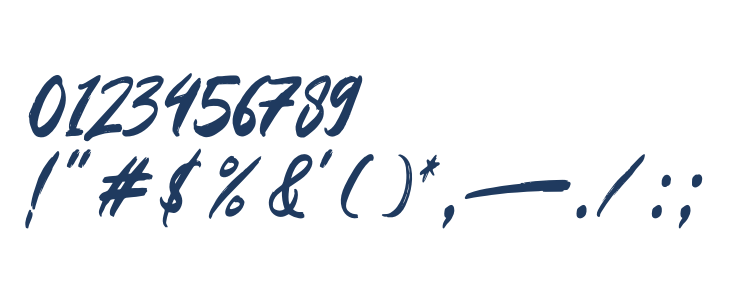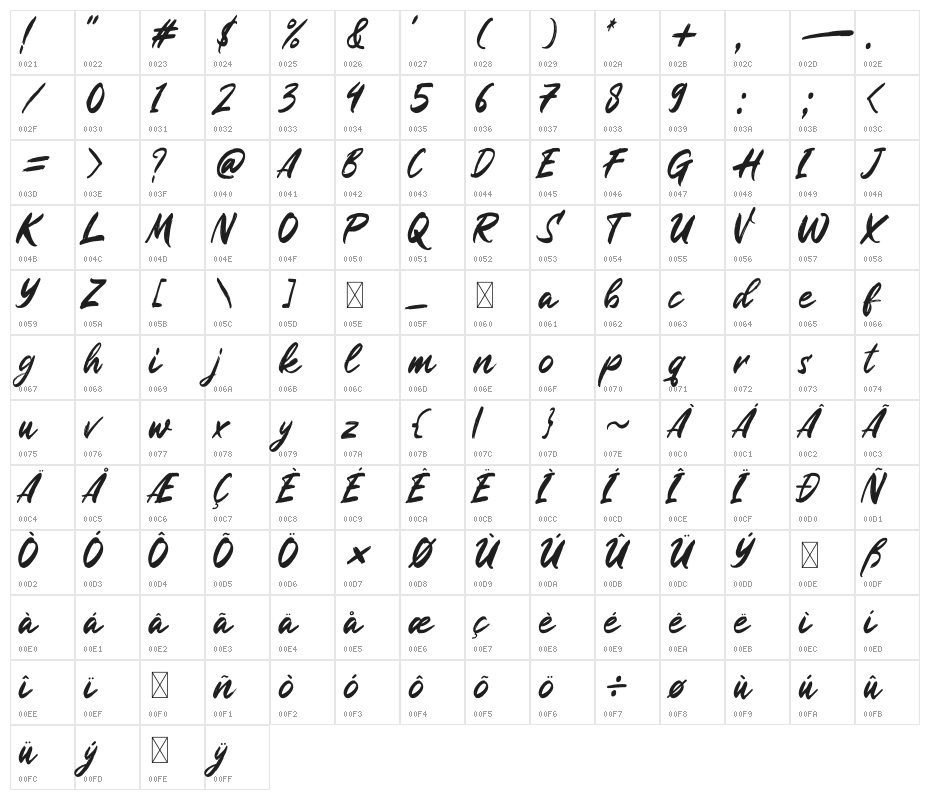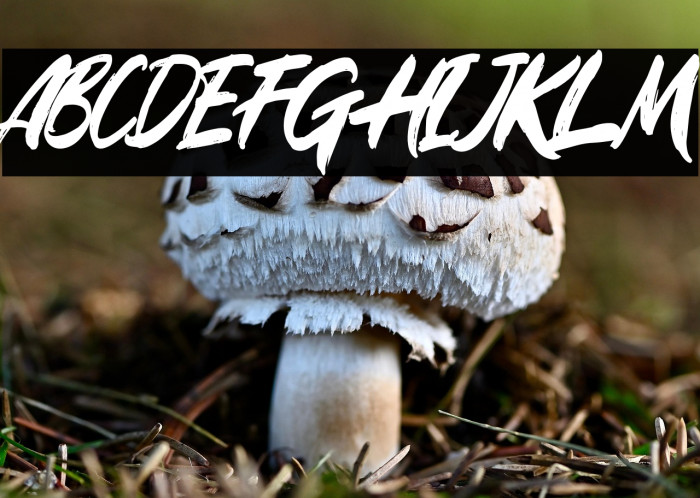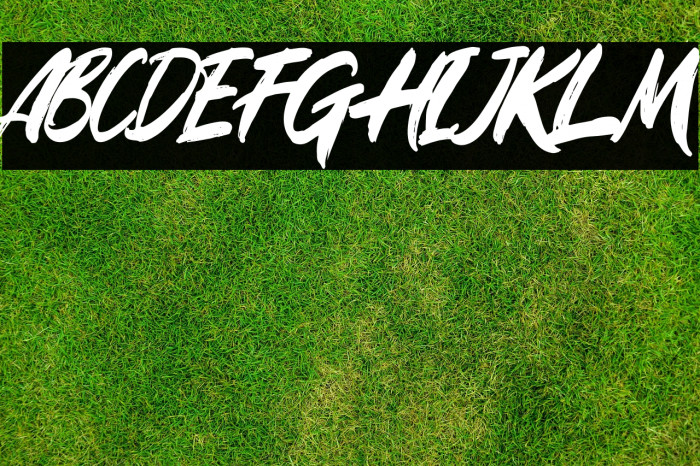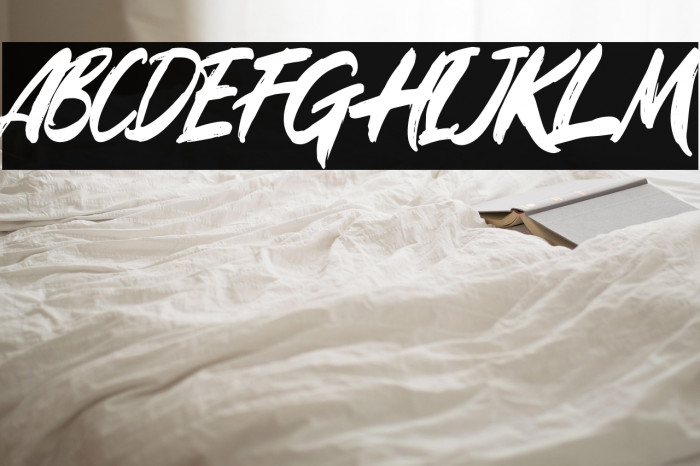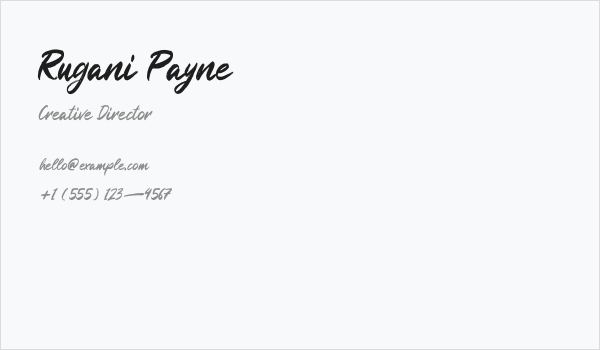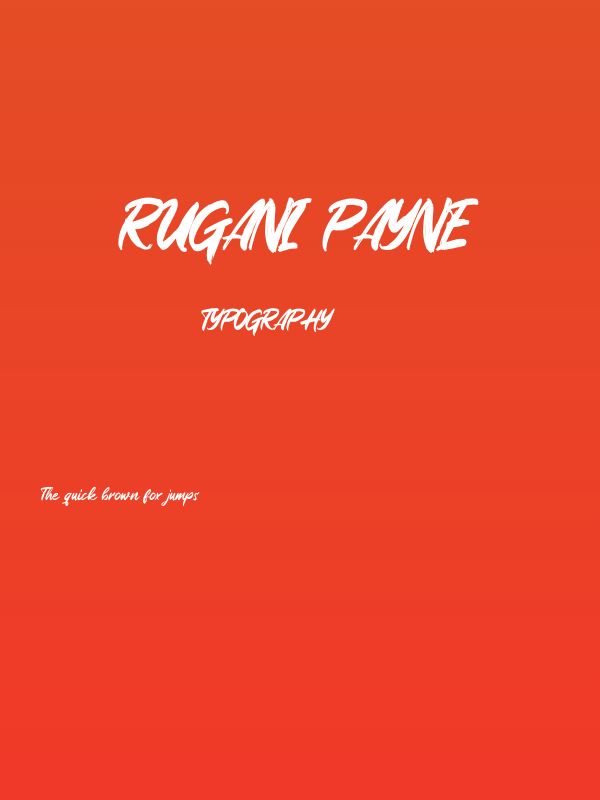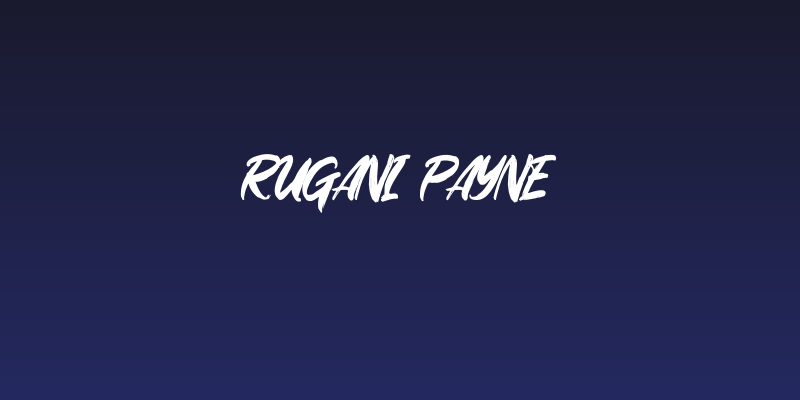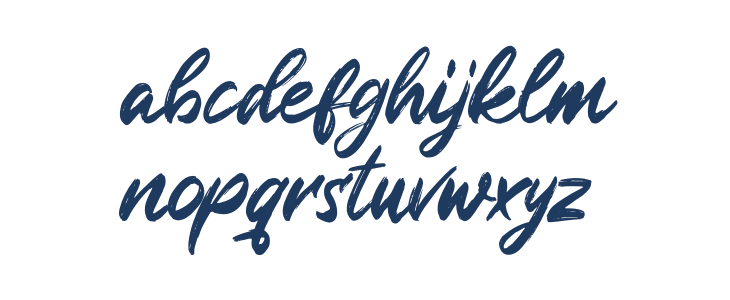
Rugani Payne Font
Rugani Payne Description
This font exhibits a bold, energetic script style with a hand-painted appearance. The strokes are dynamic and fluid, giving it a lively and expressive character. The letters are slightly slanted, enhancing the sense of motion and spontaneity. The uppercase letters are bold and commanding, while the lowercase letters maintain a consistent flow. The numbers and special characters are crafted with the same attention to detail, ensuring a cohesive look throughout. The brush-like texture adds a tactile quality, making it suitable for projects that require a personal touch.
| Proposed Projects | Ideal for branding, packaging, posters, and invitations where a personal and dynamic touch is desired. |